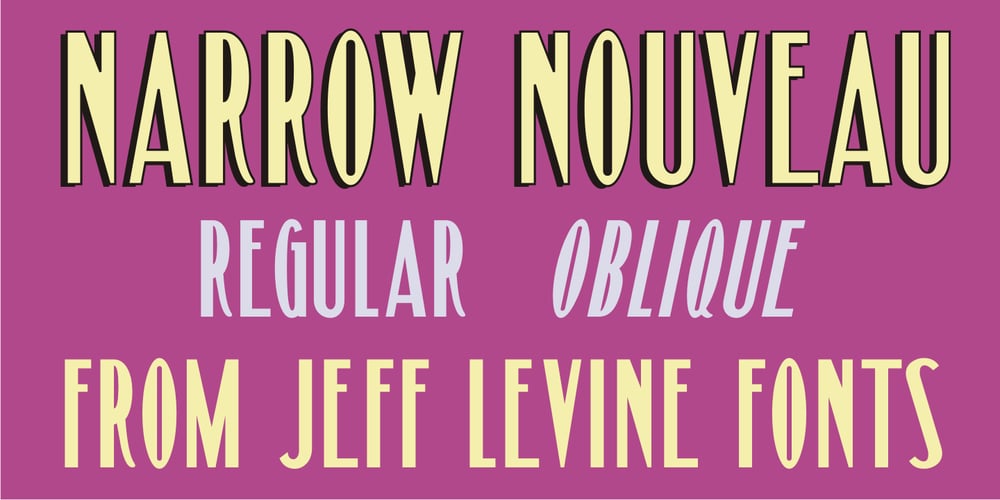
Narrow Nouveau JNL Font Family was designed by Jeff Levine and published by Jeff Levine. Narrow Nouveau JNL contains 2 styles and family package options. Narrow Nouveau JNL come from the hand lettered title on a 1907 song folio for George M. Cohan’s “The Talk of New York”, and is available in both regular and oblique versions.